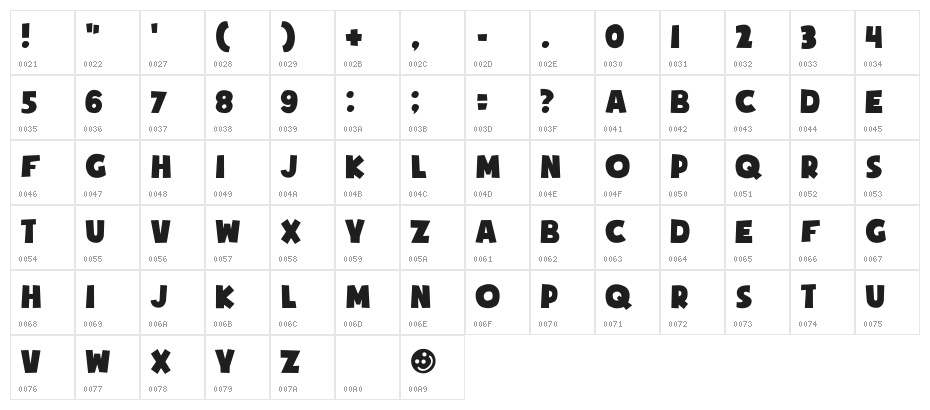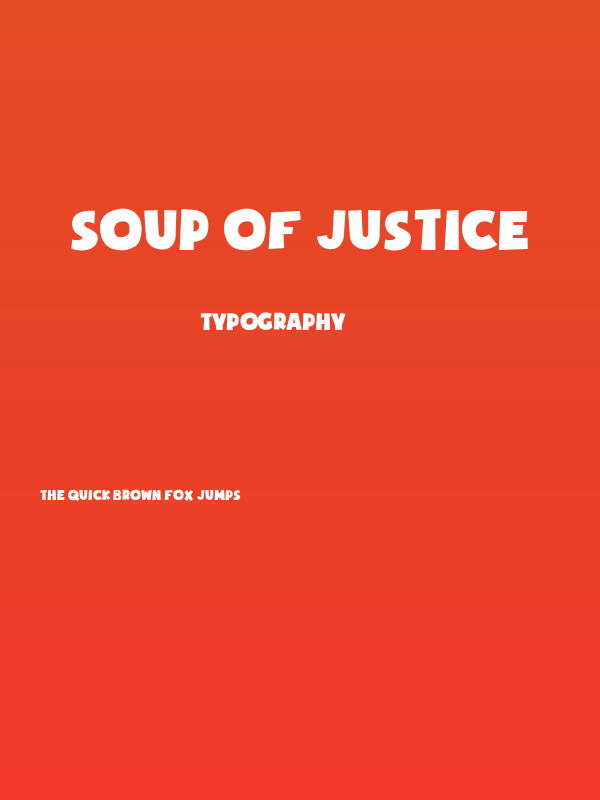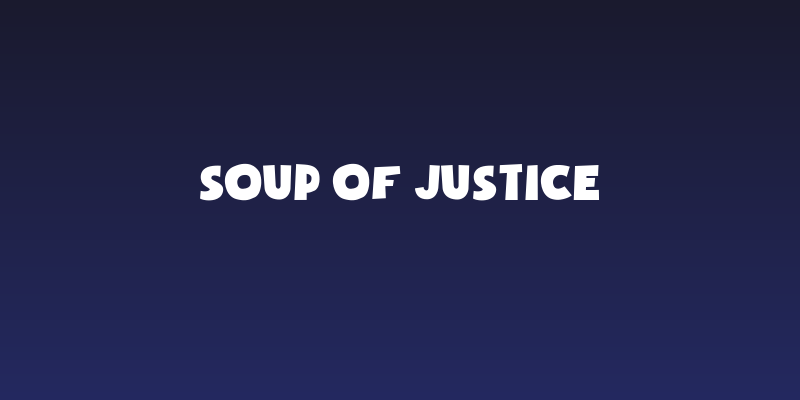
Soup of Justice Font
Soup of Justice Description
This font features bold, geometric letterforms with a strong presence. The characters are designed with sharp angles and a slight inward curve, giving them a dynamic and energetic feel. The uppercase and lowercase letters maintain a consistent weight, contributing to a cohesive and uniform appearance. The numbers are equally bold, ensuring readability and impact. Special characters are crafted with the same attention to detail, making them suitable for a variety of uses. The overall design is modern and eye-catching, perfect for making a statement.